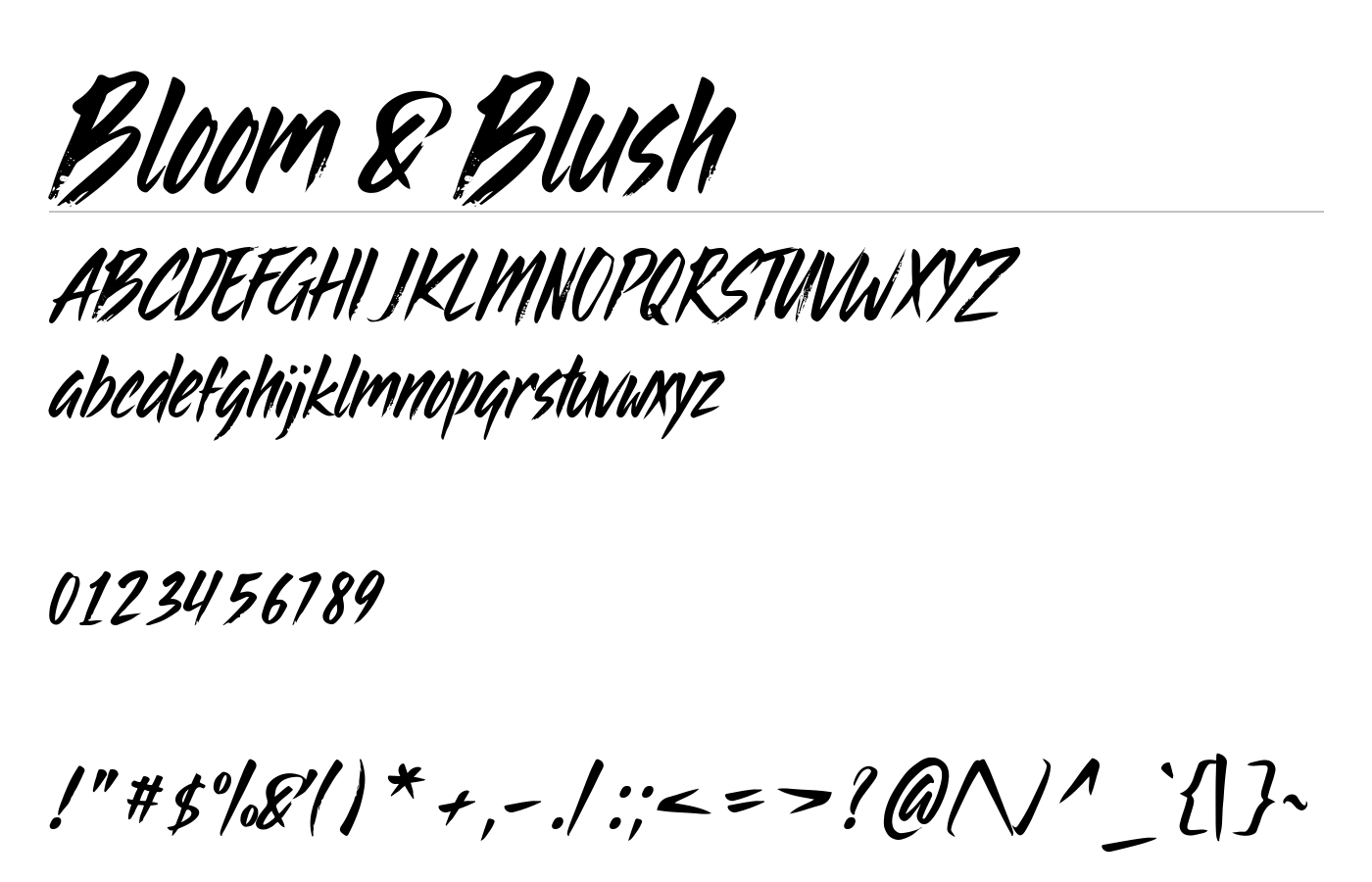
Bloom & Blush is an energetic and expressive brush script font featuring dynamic strokes with textured edges that evoke a hand-painted feel. Its bold, slightly condensed letterforms combine casual elegance with a modern, artistic flair, making it perfect for creative branding, logos, and eye-catching headlines. This font works especially well where a vibrant, handcrafted vibe is desired to convey personality and style.
Bloom & Blush Font
About Bloom & Blush Font
| Font family | Bloom & Blush Font |
| Designer | CAT.B |